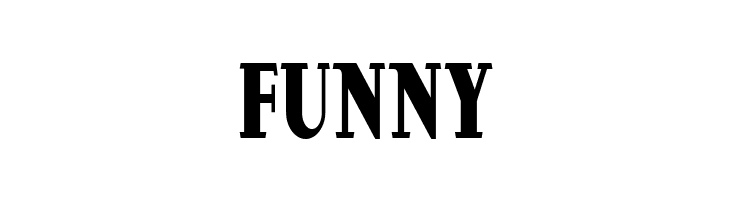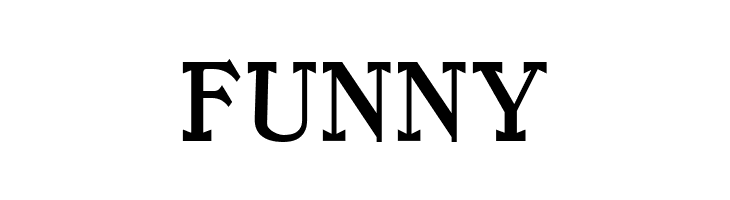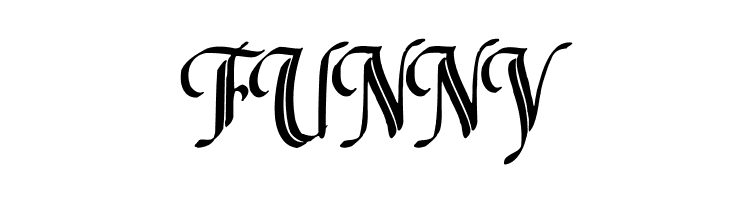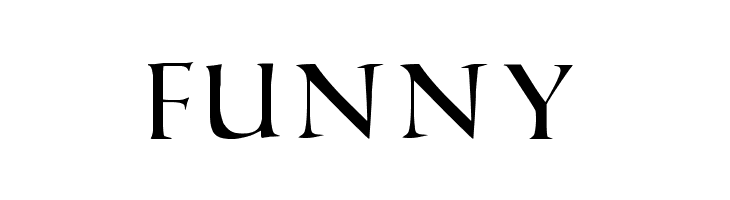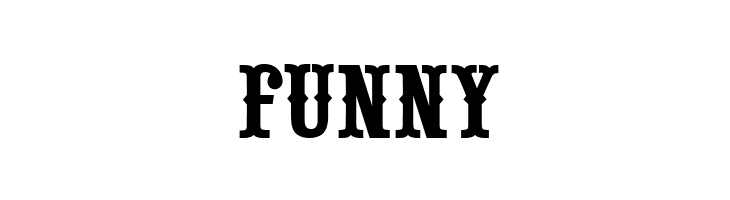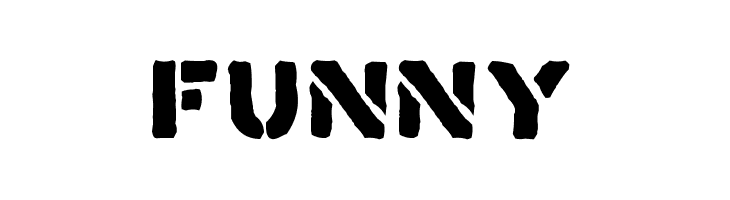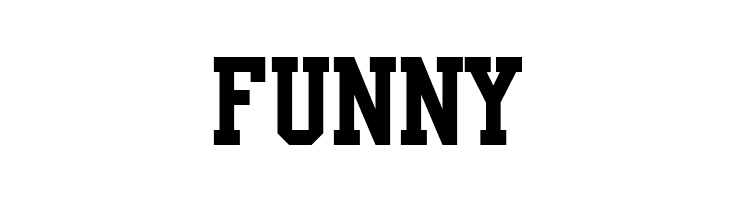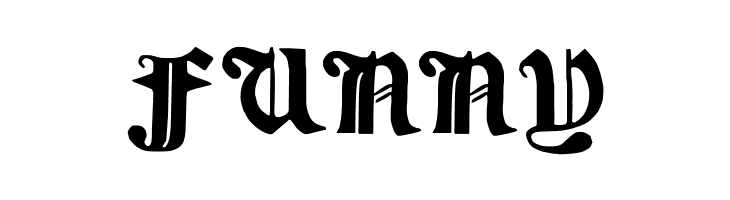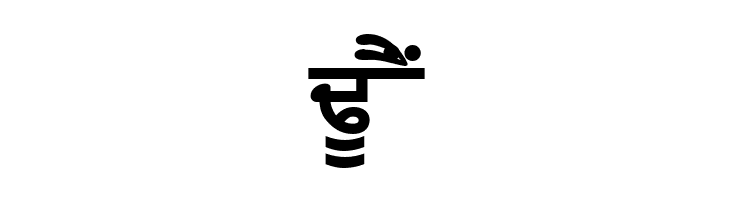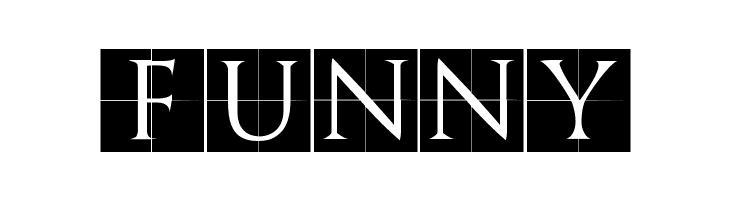
A bold, serif font with strong strokes and classic elegance.
A classic serif font with bold, bracketed serifs and a strong, traditional presence.
An ornate, calligraphic font with sharp, angular strokes and elegant flourishes.
A classic serif font with sharp serifs and clean lines, offering elegance and authority.
A bold, geometric slab serif font with strong horizontal emphasis.
A bold, stencil-style font with an industrial and rugged appearance.
A bold, geometric serif font with a strong, impactful design.
A bold, stencil-style font with an industrial and rugged appearance.
A bold, blackletter-style font with ornate, angular characters.
A classic serif font with elegant strokes and a refined, timeless appeal.
A classic serif font with elegant, tall letters and sharp serifs.
A bold, geometric font with high contrast and classical influences.
A bold, italicized blackletter-inspired font with sharp, angular lines.
A bold, vintage-style font with strong, uniform strokes and decorative numbers.
A bold and impactful font with a strong, authoritative presence.
A bold, high-contrast serif font with dramatic, angular serifs and unique embellishments.
A bold, slab serif font with high contrast and vintage-modern appeal.
A bold, blocky font with a strong, geometric design.
A bold, impactful slab serif font with a vintage yet modern appeal.